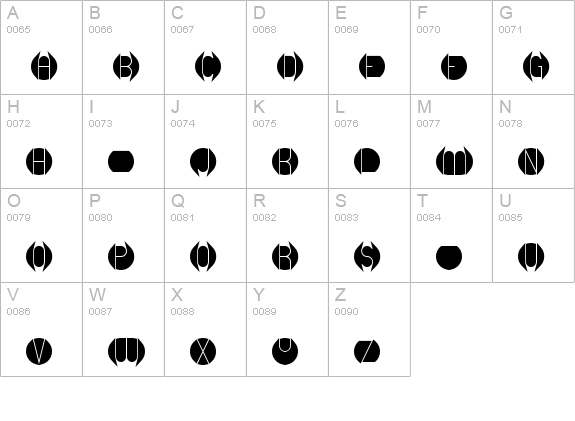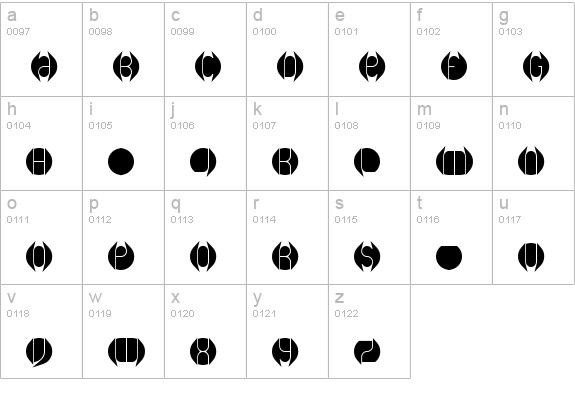
DB Layer 1 BRK Font Details
DB Layer 1 BRK font is a stylish and modern typeface that exudes sophistication and elegance. With its sharp edges and unique design, this font is perfect for creating eye-catching designs that demand attention. The clean lines and bold strokes of DB Layer 1 BRK font make it a versatile choice for various projects, from branding to advertising. The best part? DB Layer 1 BRK font is available for free download at FontsMarket.com, making it accessible to all designers and creatives looking to elevate their work with a distinctive and impactful typeface. So why wait? Download DB Layer 1 BRK font today and add a touch of sophistication to your projects!